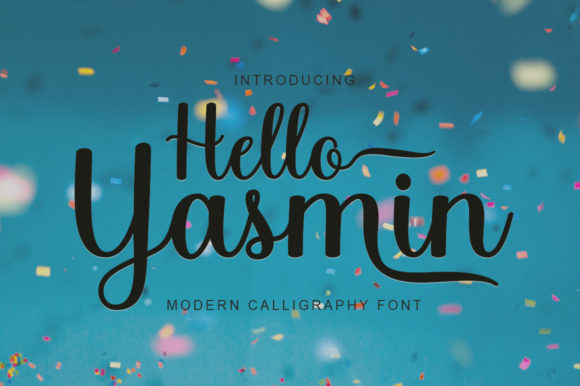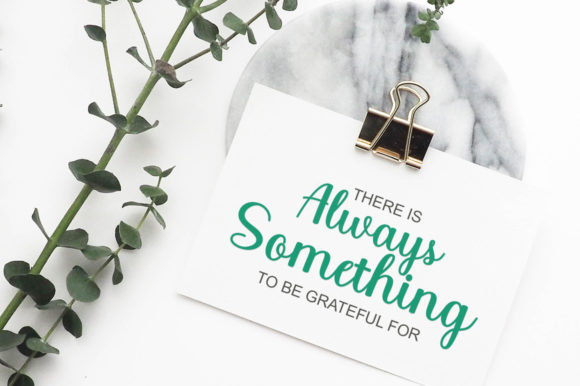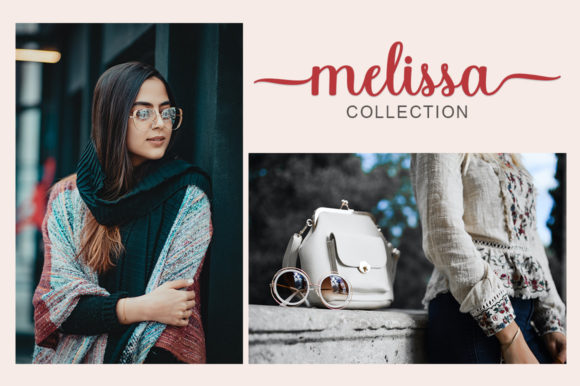
About Hello Yasmin Font
Hello Yasmin is a lovely and timeless handwritten font. It is the best choice for creating eye catching logos, branding and quotes. Every letter has a unique and beautiful touch, which will make your design. This font is PUA encoded which means you can access all of the glyphs and swashes with ease!